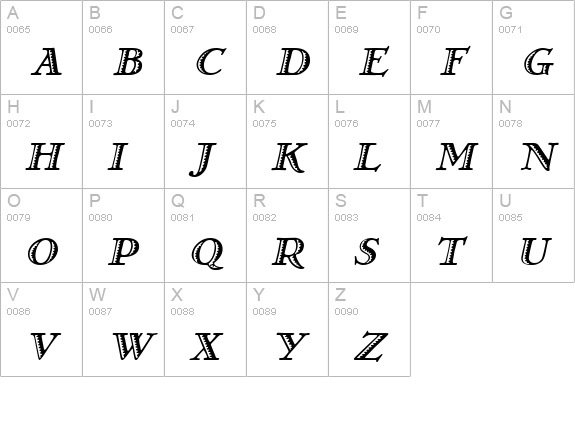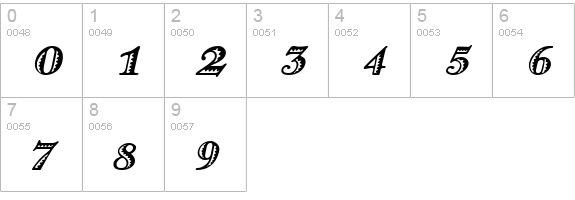
Ramona Italic Font Details
Ramona Italic is a distinctive, italic variant in the Ramona typeface family \xE2\x80\x94 well suited to design and typography projects.
Ramona Italic font is a stunning typeface that exudes elegance and sophistication. Its delicate, slanted strokes add a touch of flair to any design, making it perfect for both formal and informal projects. The smooth curves and graceful letterforms of Ramona Italic evoke a sense of timeless beauty, making it a truly versatile font that can be used in a wide range of creative endeavors. Whether you're designing wedding invitations, crafting a logo, or creating eye-catching social media graphics, Ramona Italic will elevate your work to new heights. Its unique blend of classic charm and contemporary style makes it stand out from the crowd, ensuring that your designs will be noticed and remembered. What sets Ramona Italic font apart is that it is not only visually stunning but also freely available to download. You can easily access this exceptional font at FontsMarket.com, a trusted platform for high-quality fonts. By offering Ramona Italic for free, FontsMarket.com aims to empower designers and creatives, providing them with the tools they need to bring their visions to life without any barriers. So, don't miss out on the opportunity to enhance your designs with the captivating beauty of Ramona Italic font. Download it for free at FontsMarket.com and let your creativity soar. Whether you're a professional designer or a passionate hobbyist, this font will add a touch of elegance and finesse to your projects, ensuring that they leave a lasting impression on your audience.